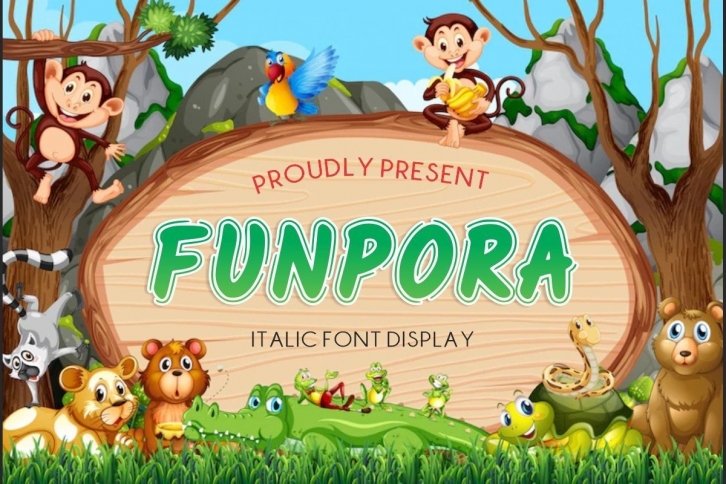
Funpora is a fun and friendly display font. With a casual and easy to read character, this font is perfect for children themed designs and school projects. Your options are limitless.